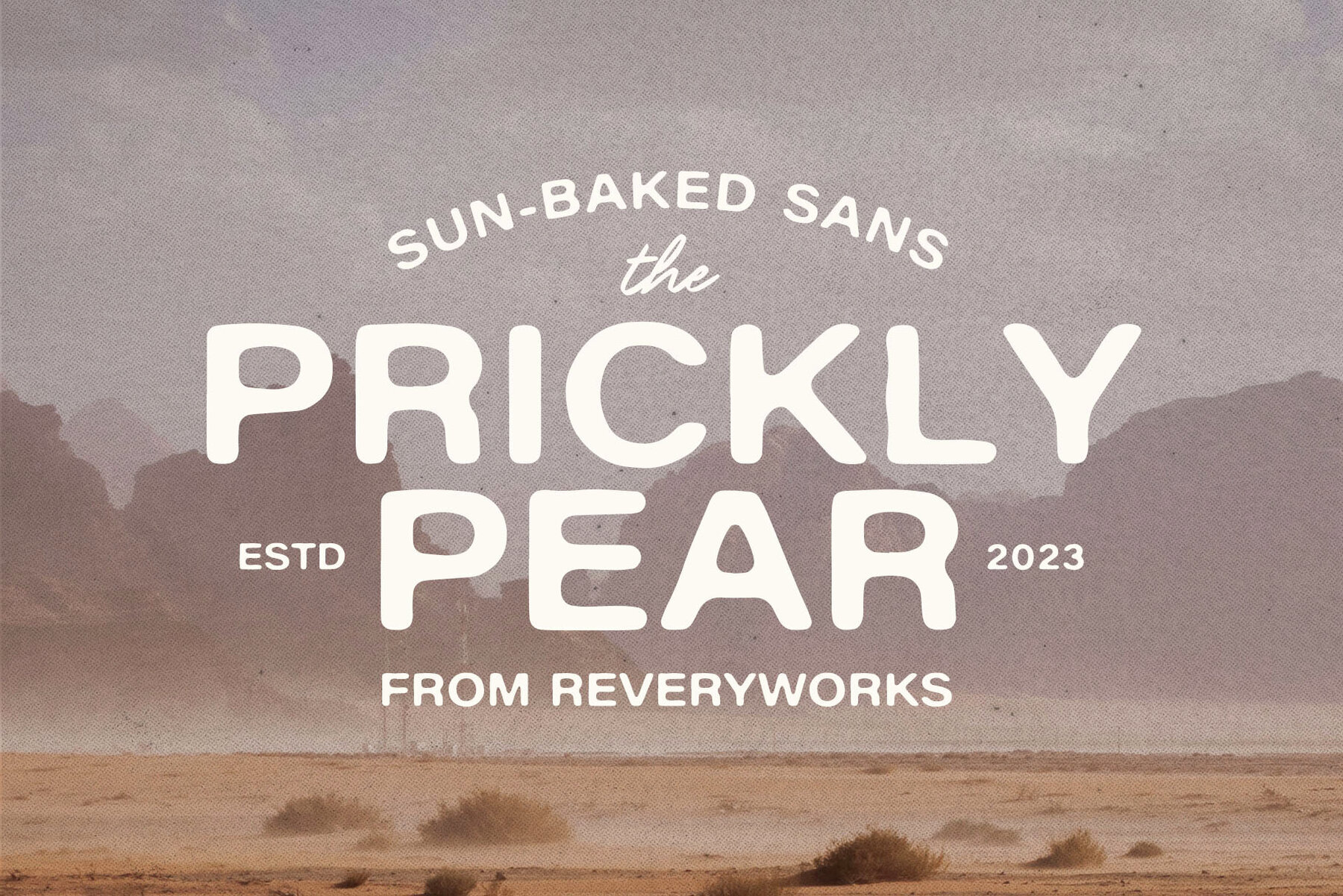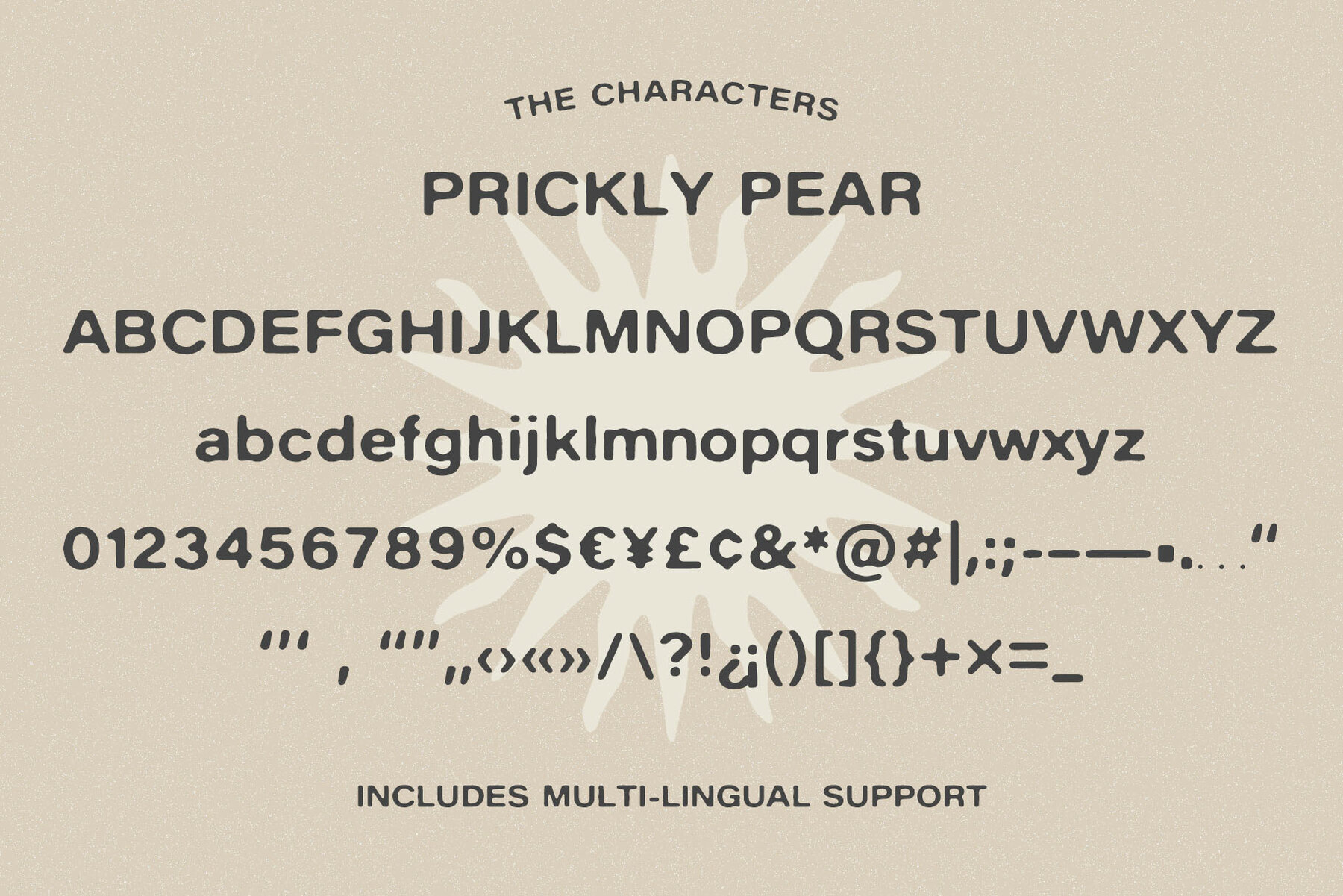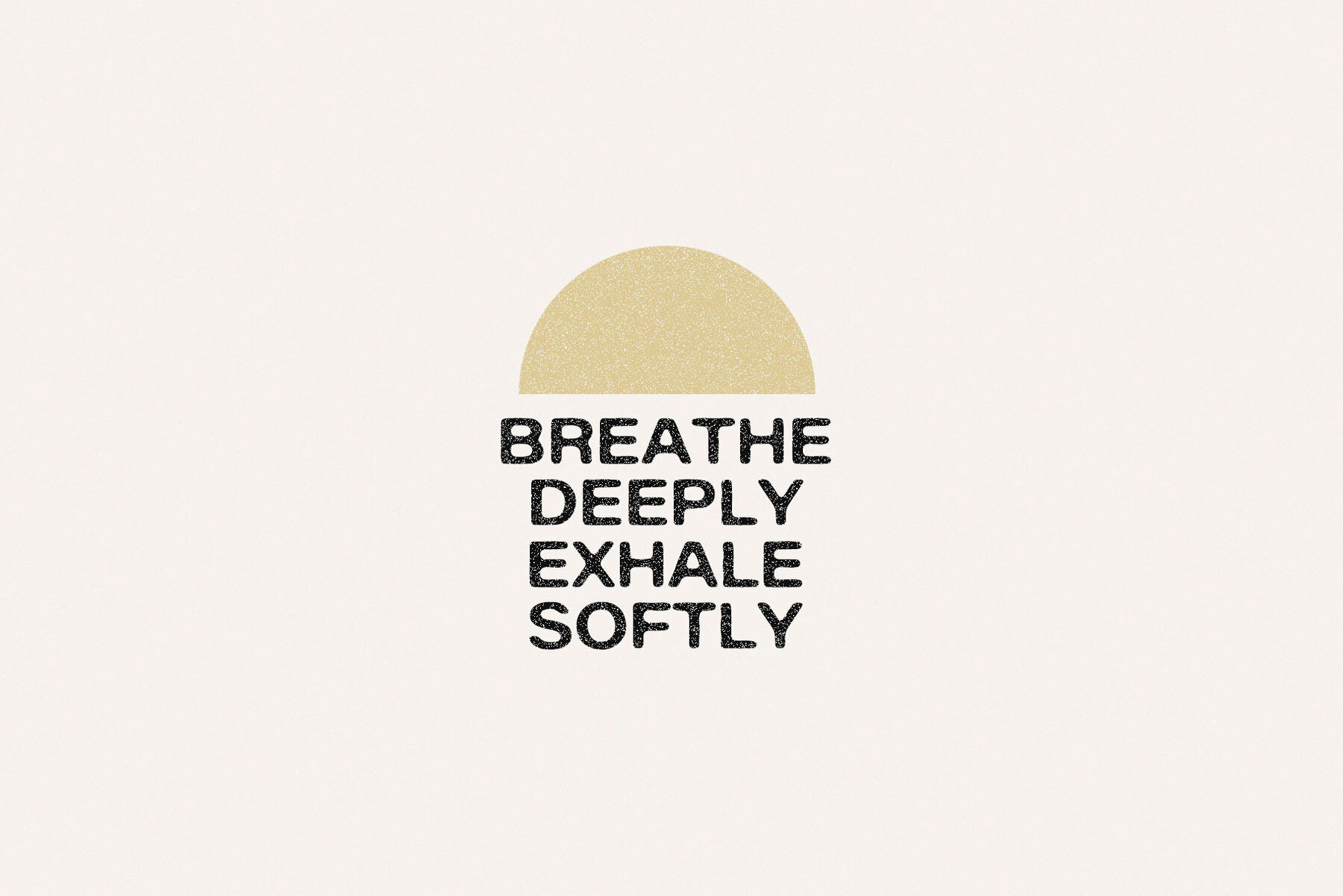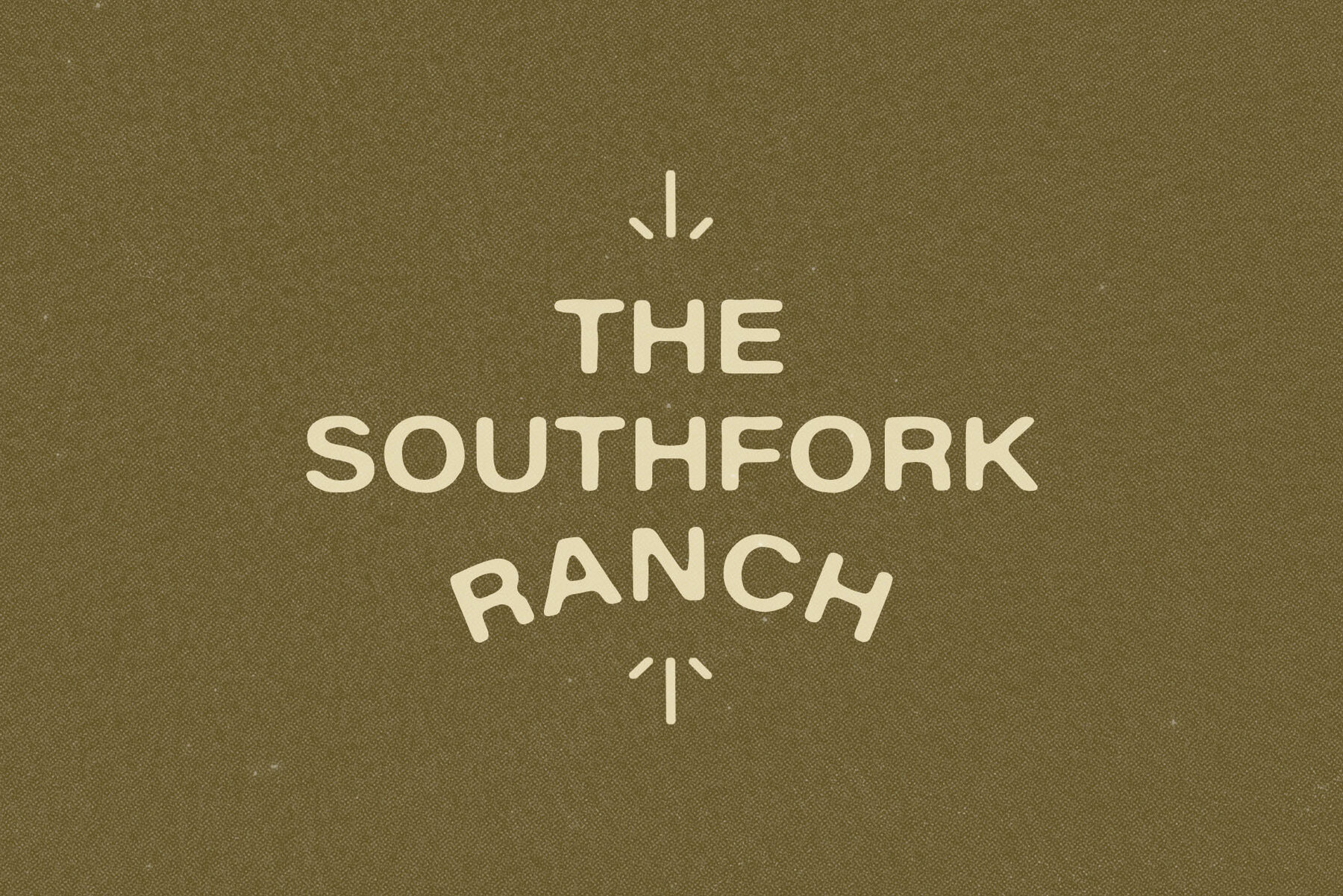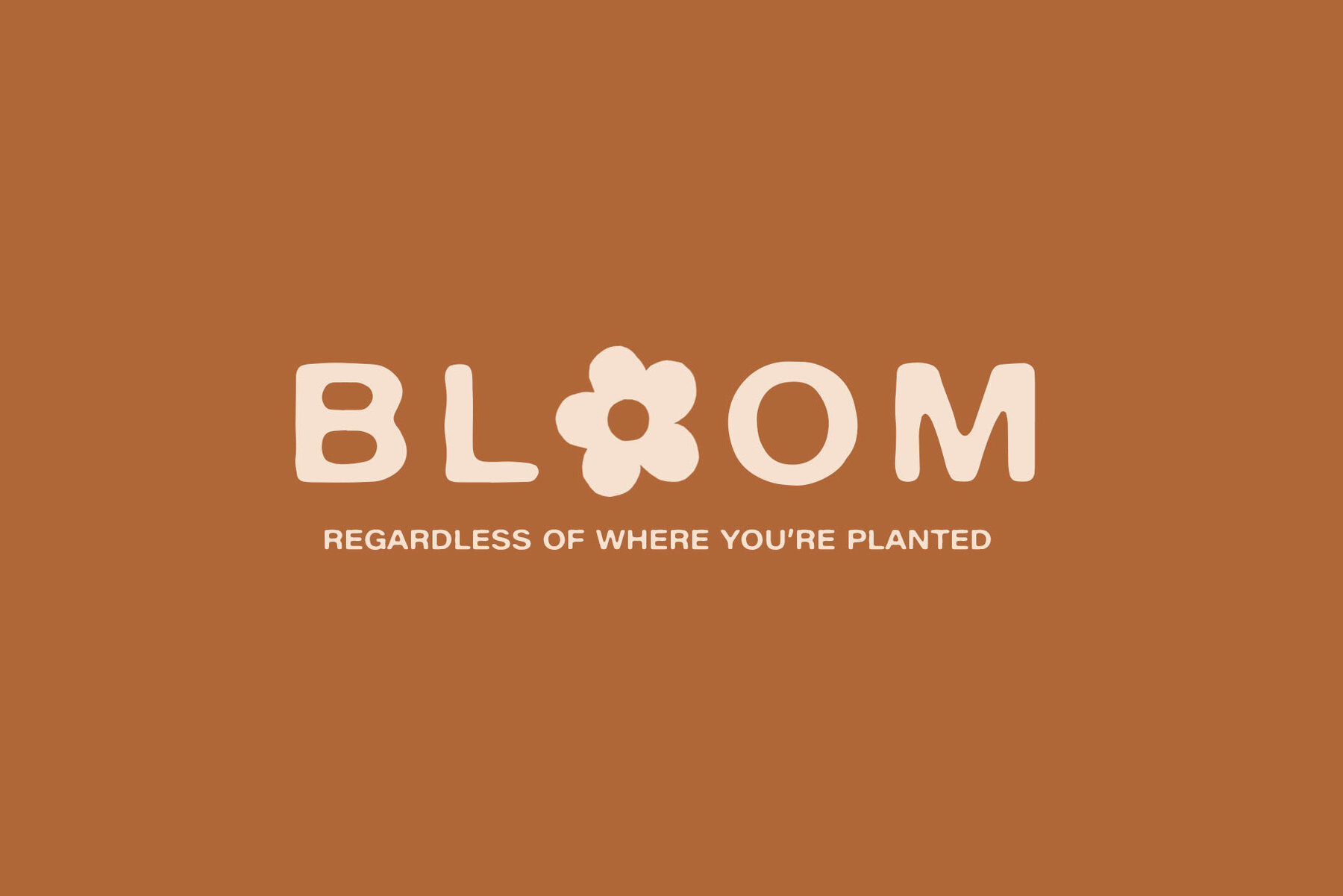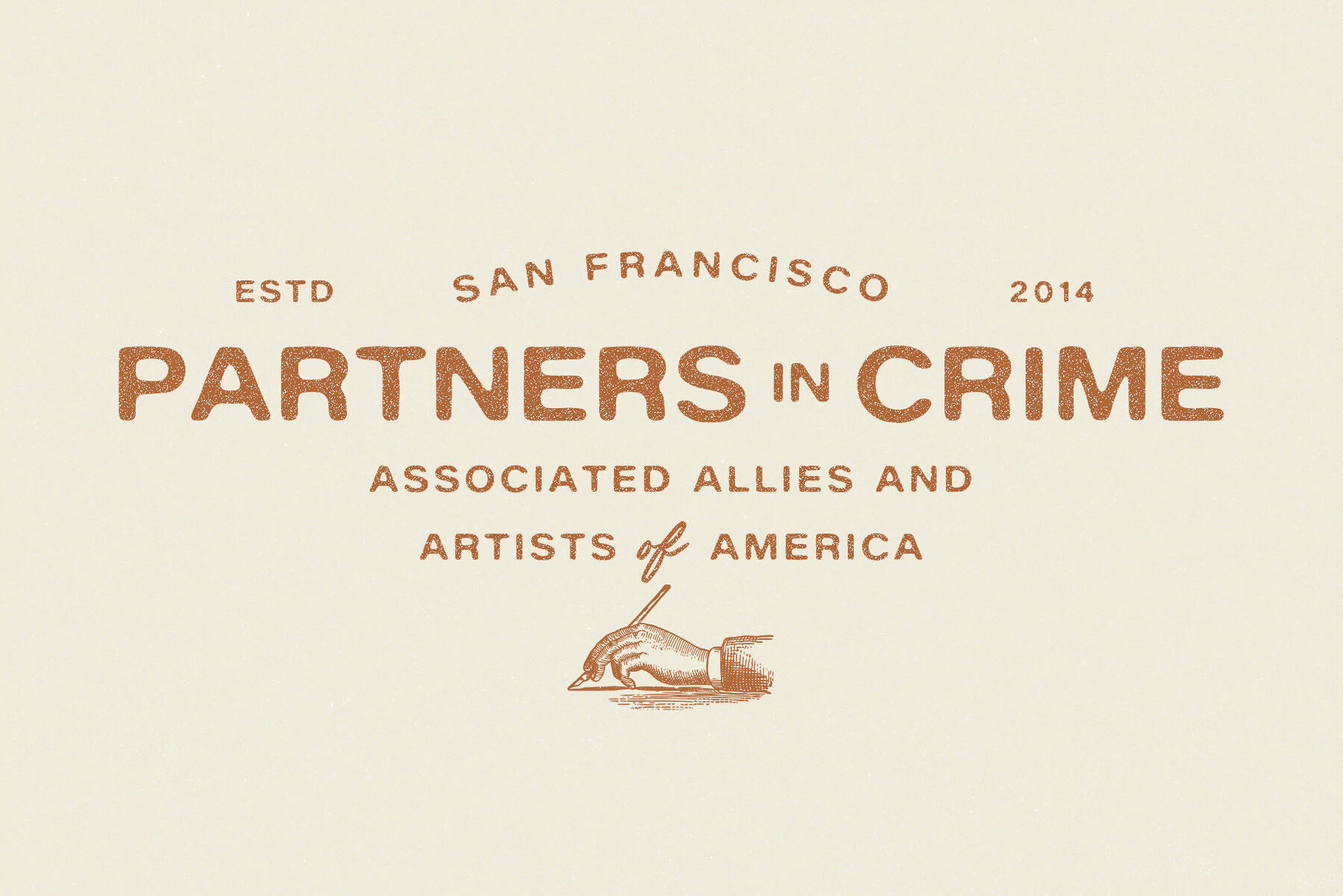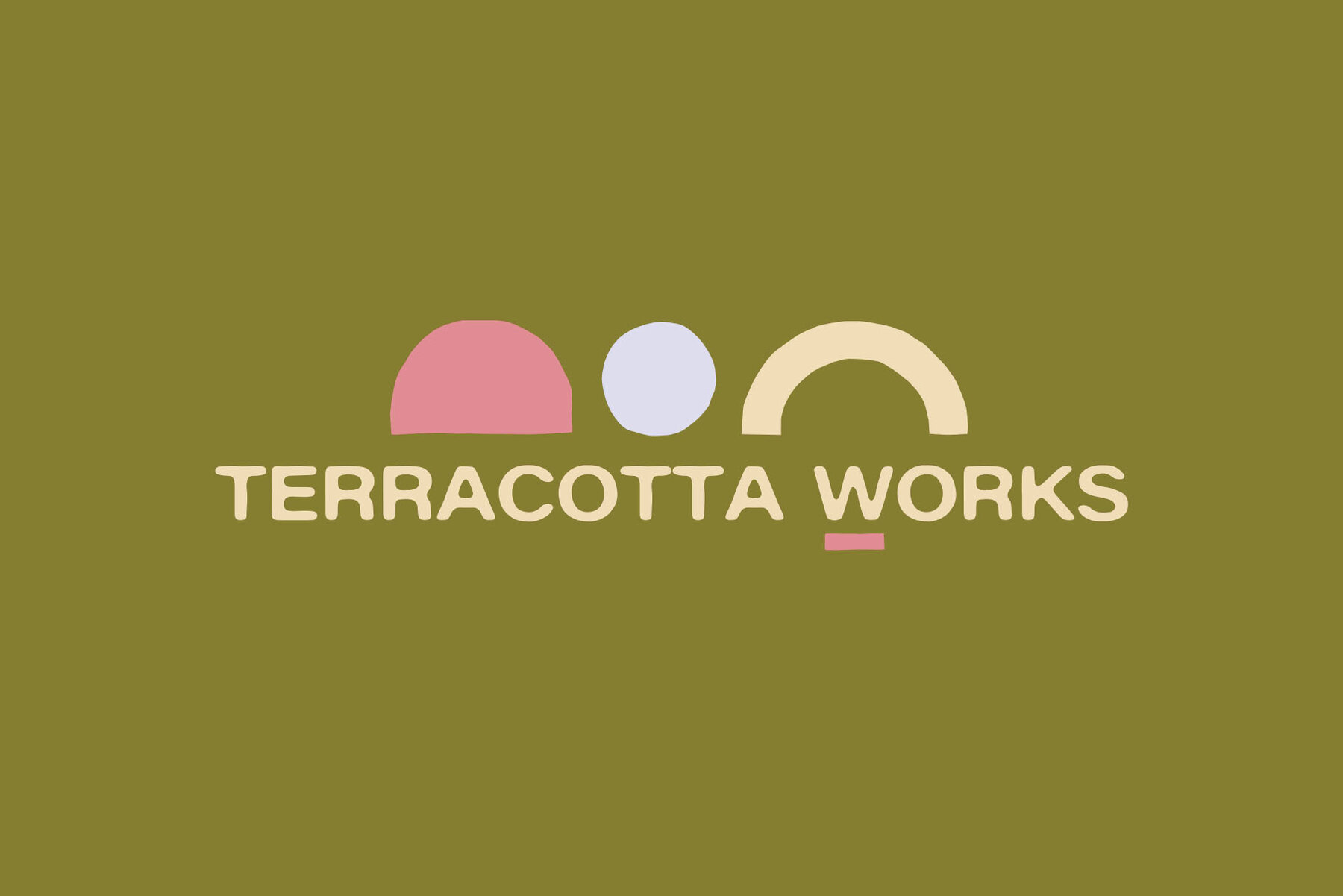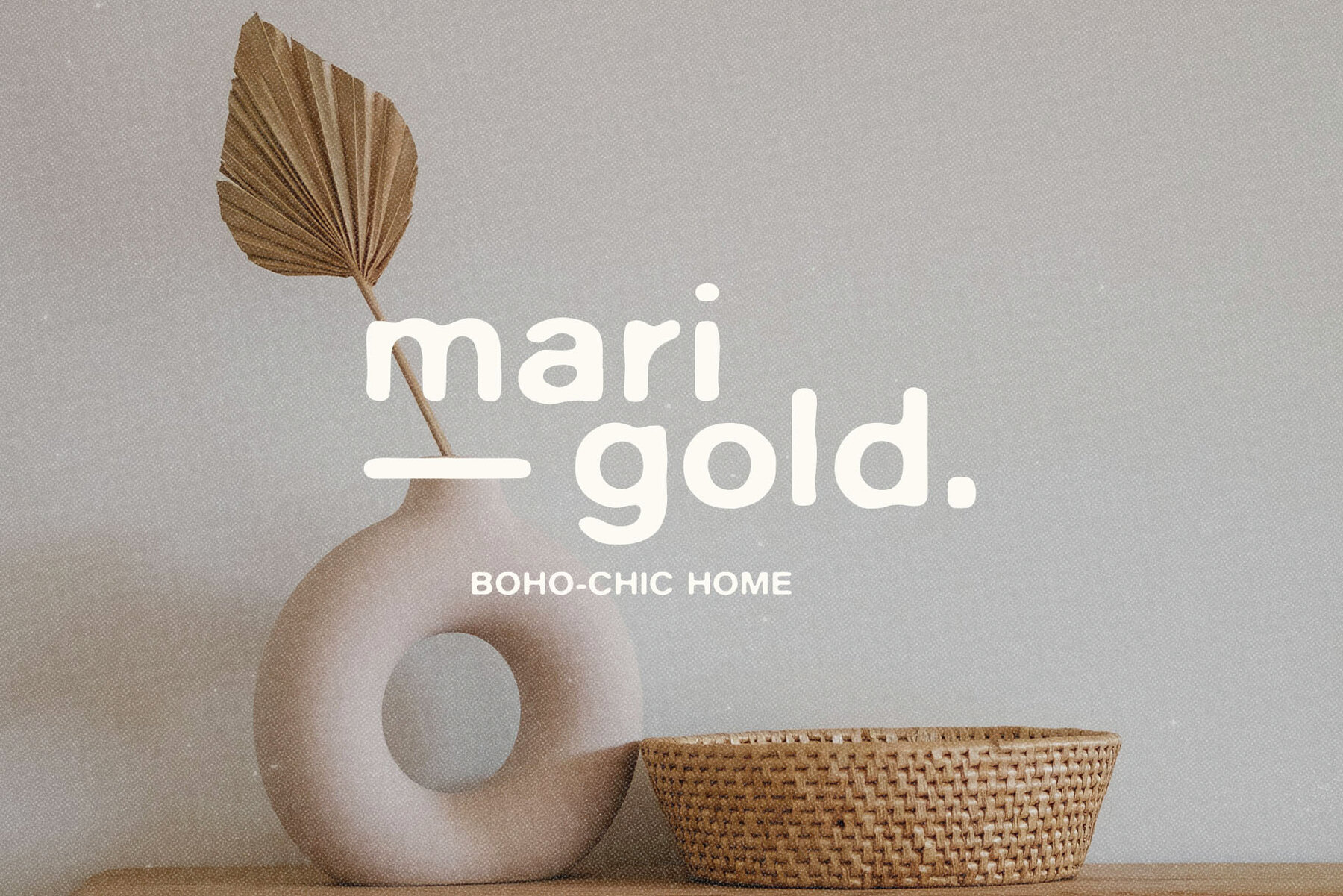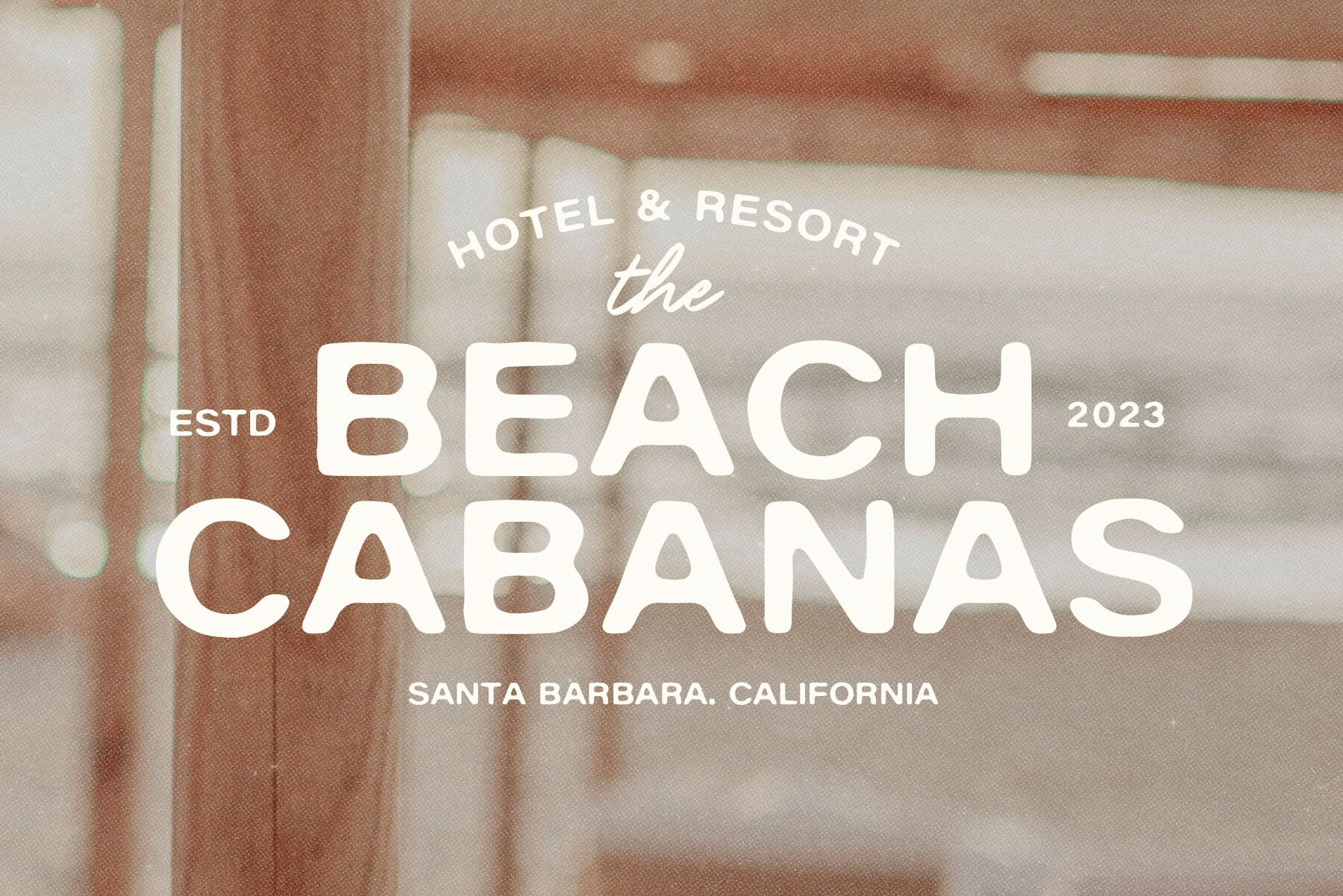
The Prickly Pear Font
The Prickly Pear is a unique sans-serif font inspired by the Western Desert, designed by Maryam Kamal. This inky typeface features soft edges and a minimalist design, making it versatile for a wide range of projects. Its boho-inspired style pairs wonderfully with matching hand-drawn abstract doodles, offering endless creative possibilities. This font supports multiple languages with an array of special characters, including á, â, à, ä, å, ã, æ, ç, é, ê, è, ë, í, î, ì, ï, ñ, ó, ô, ò, ö, õ, ø, œ, š, ß, ú, û, ù, ü, ý, ÿ and more.The Prickly Pear: Sun-Baked Sans with Western Desert Inspiration